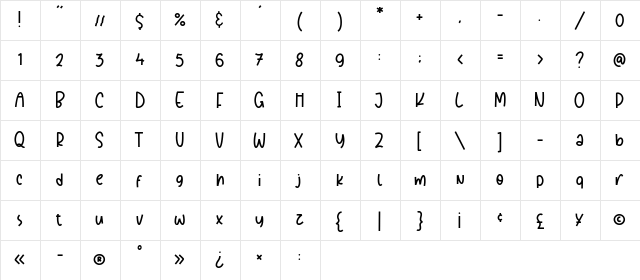
Diamond Midnight Regular
| Designer | Balpirick Studio |
Design Context for Diamond Midnight Typeface
Diamond Midnight takes a measured approach to typography — its balanced proportions and neutral character make it a reliable workhorse for both digital and print work.